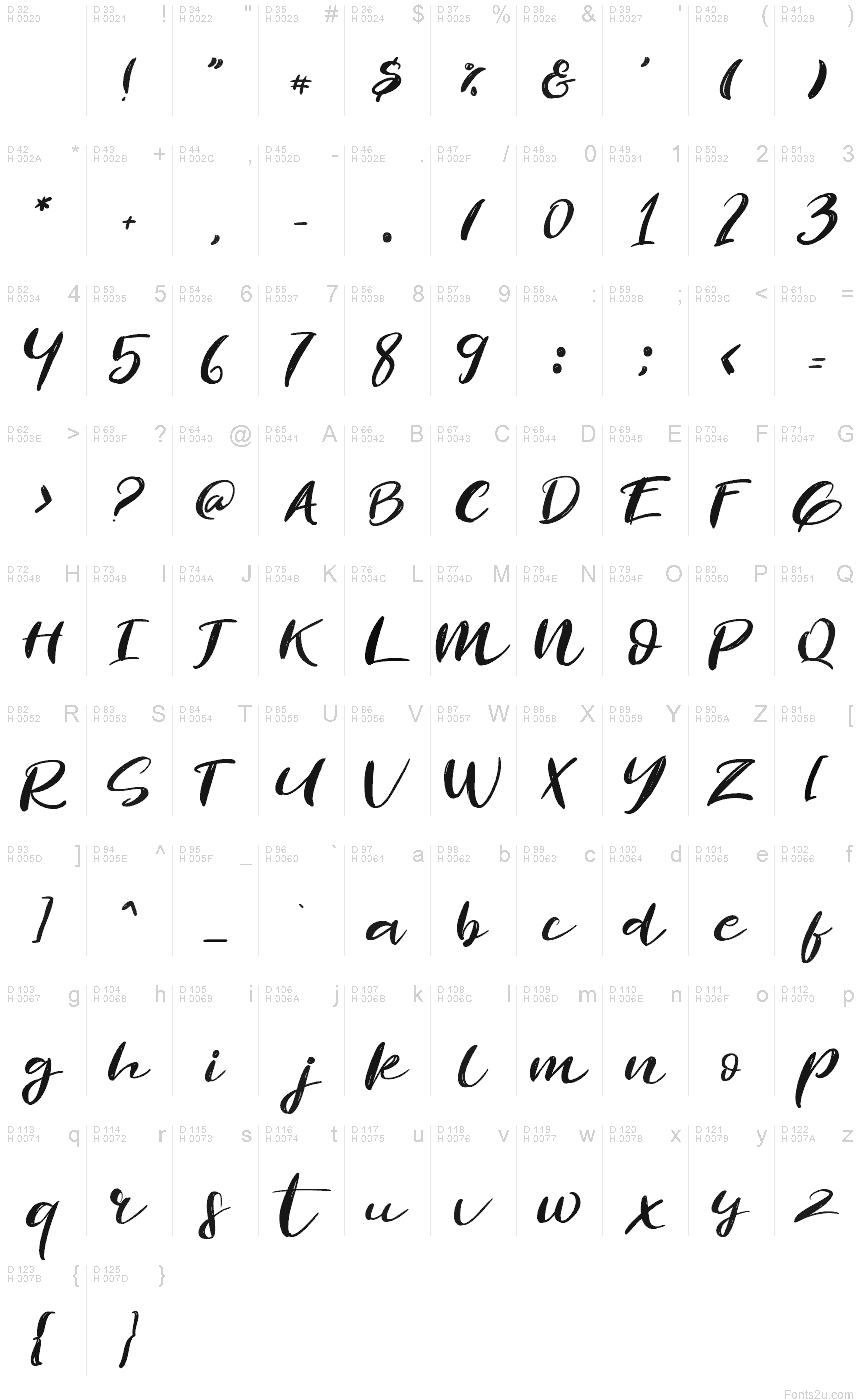
Revolution
Revolution by Debut Studio is a free brush-script font with a modern calligraphy feel. The lettering moves with broad, inky strokes, long looping joins, and a soft bounce that keeps it flowing rather than formal; those big opening swashes and rounded turns give it a romantic, handwritten mood.
It fits branding, beauty packaging, cafe menus, wedding stationery, and social media quote graphics, where a free font with this much motion can carry a short line on its own. Use it for logos, cover lines, title cards, or monogram-style initials when you want the sweeping strokes and tall flourishes to do most of the visual work.